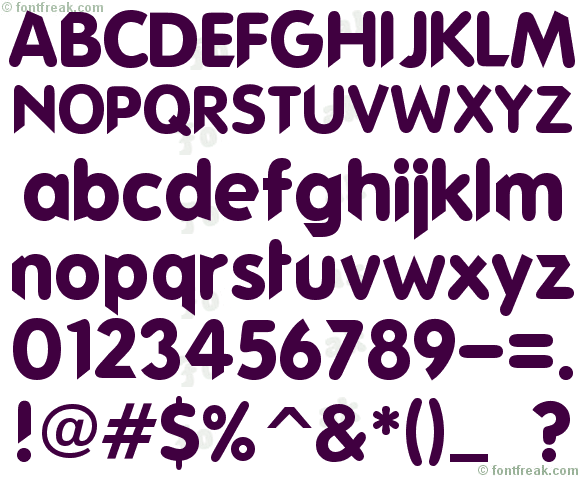
Phat guy
About Phat Guy
Phat Guy by Levi is a striking display font that captures attention with its bold, playful presence. This typeface, released in 2000, is categorized as a decorative font, characterized by its unique, rounded forms and exaggerated proportions that evoke a sense of whimsy and fun. The strokes of the Phat Guy font are thick and consistent, providing a robust appearance, while the minimal contrast between the thick and thin parts creates a uniformity that enhances its visual impact. The spacing is generous, allowing each letter to breathe, which further contributes to its approachable and friendly vibe.
Ideal for a variety of creative applications, the Phat Guy font shines in contexts where a lively, informal tone is desired. It is particularly well-suited for children's book covers, playful branding for cafes or ice cream shops, eye-catching movie posters, and vibrant event flyers. Its fun aesthetic makes it a favorite among graphic designers and small business owners looking to convey a sense of creativity and approachability in their projects. Content creators aiming to engage a younger audience or add a quirky touch to their designs will also find this font immensely appealing.
What sets the Phat Guy font apart is its ability to convey personality without overwhelming the design. Its playful nature invites viewers in, making it an excellent choice for brands looking to establish a friendly connection with their audience. For anyone seeking a fresh and lively typeface, the Phat Guy font free download offers an opportunity to infuse designs with joy and creativity. Whether used for print or digital media, this font is sure to leave a lasting impression.